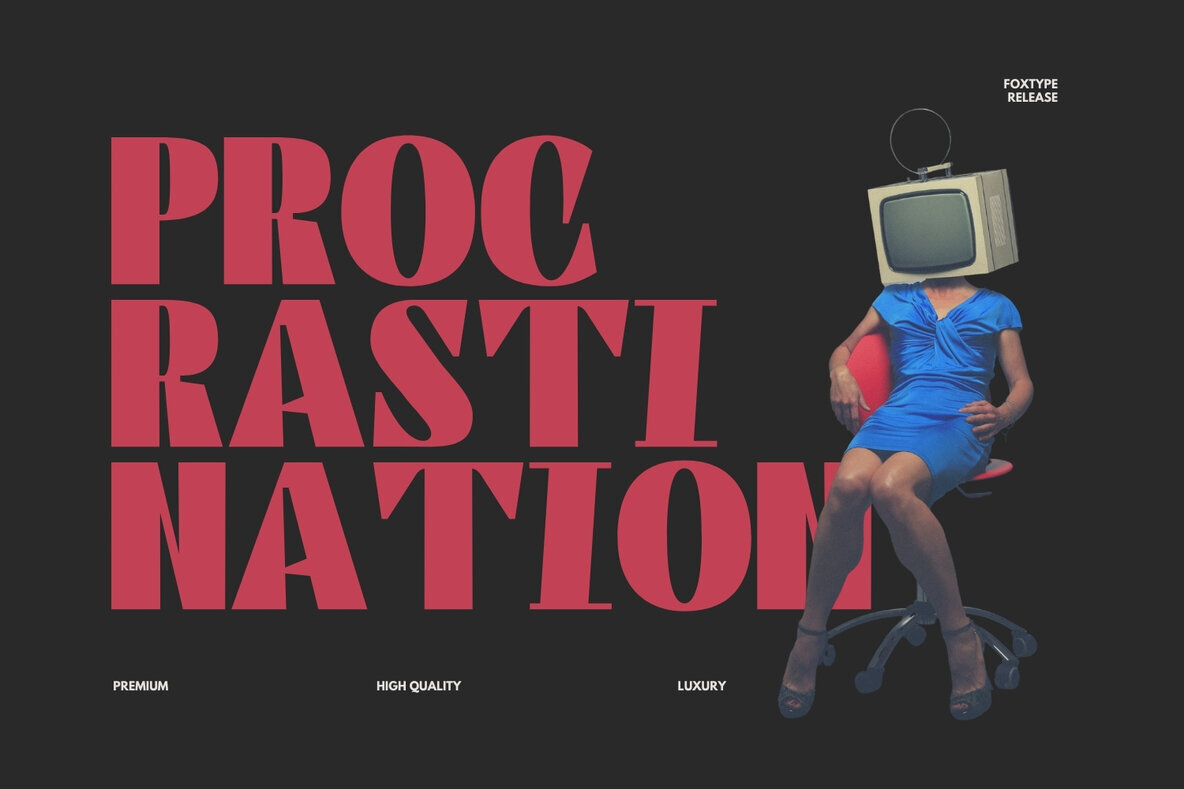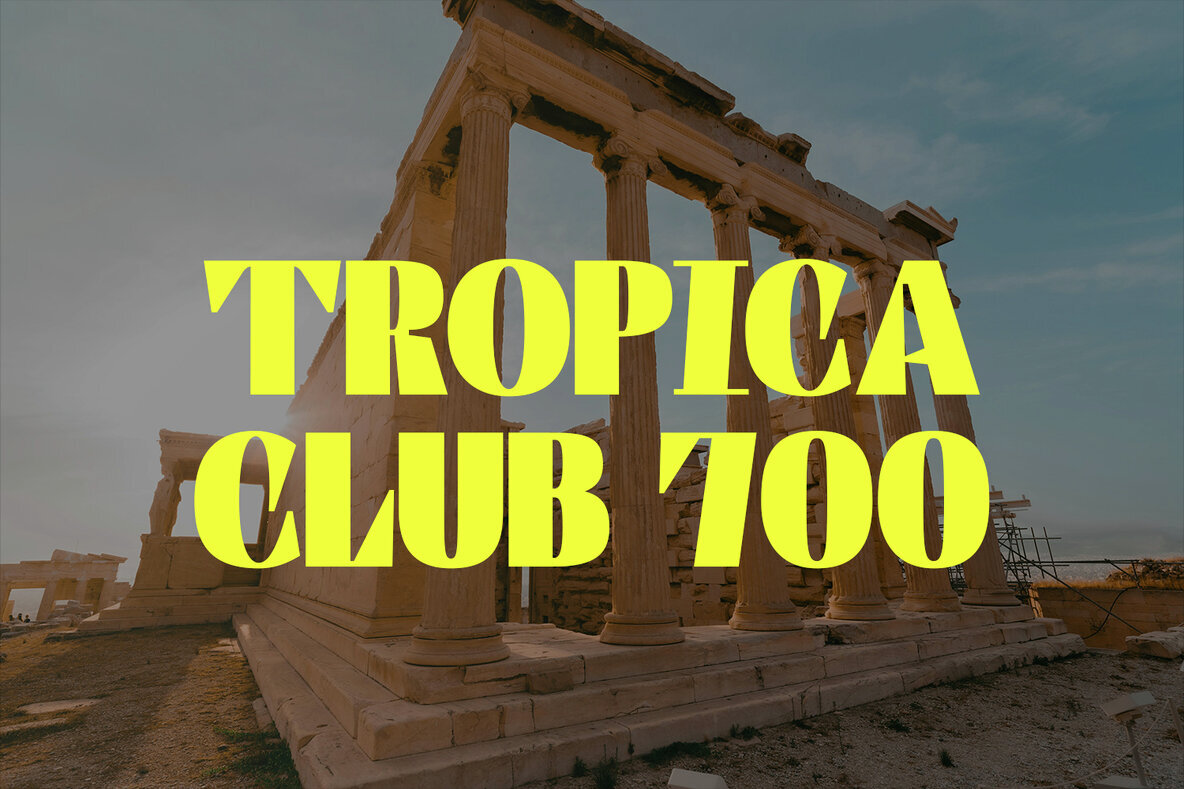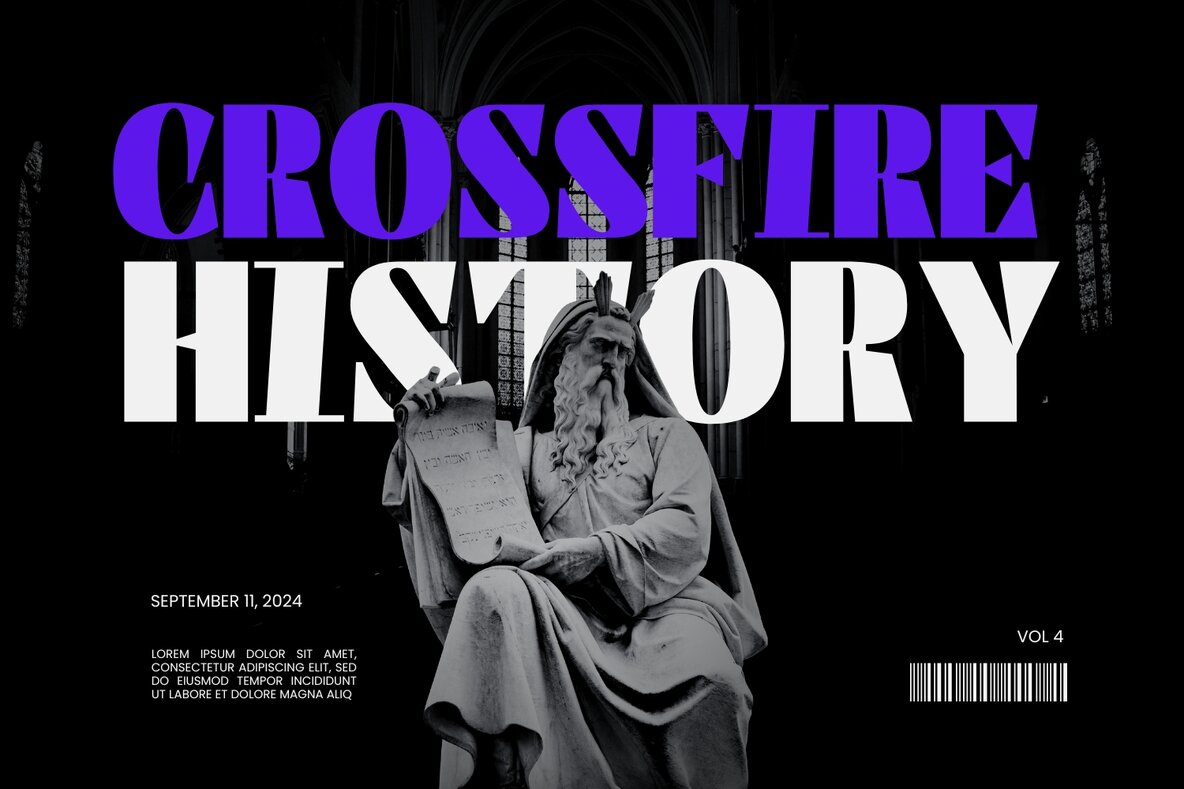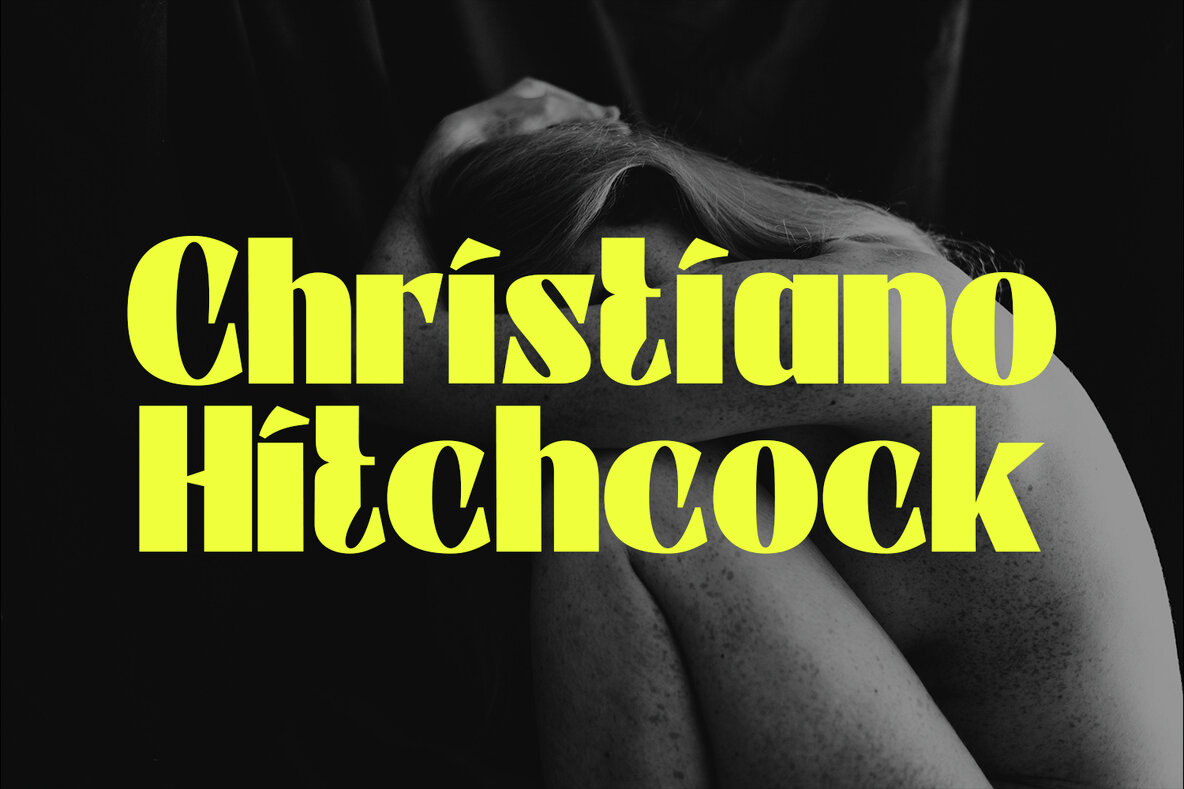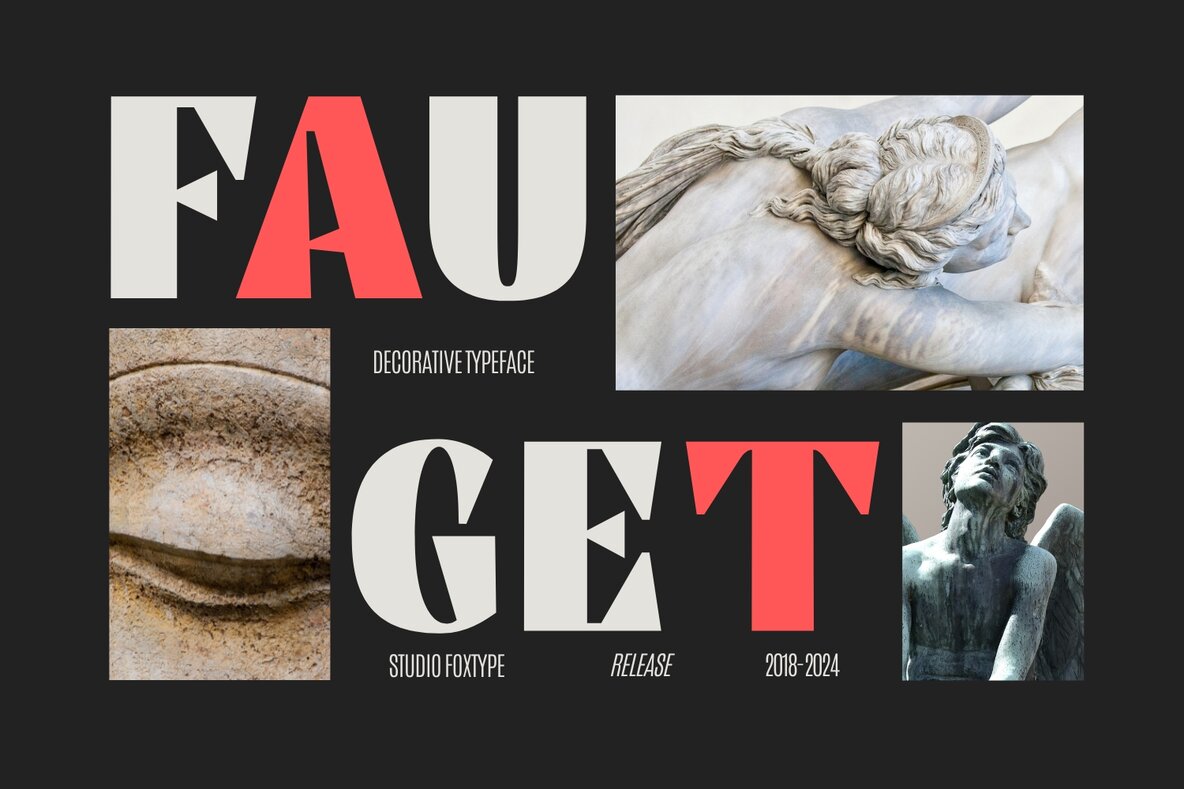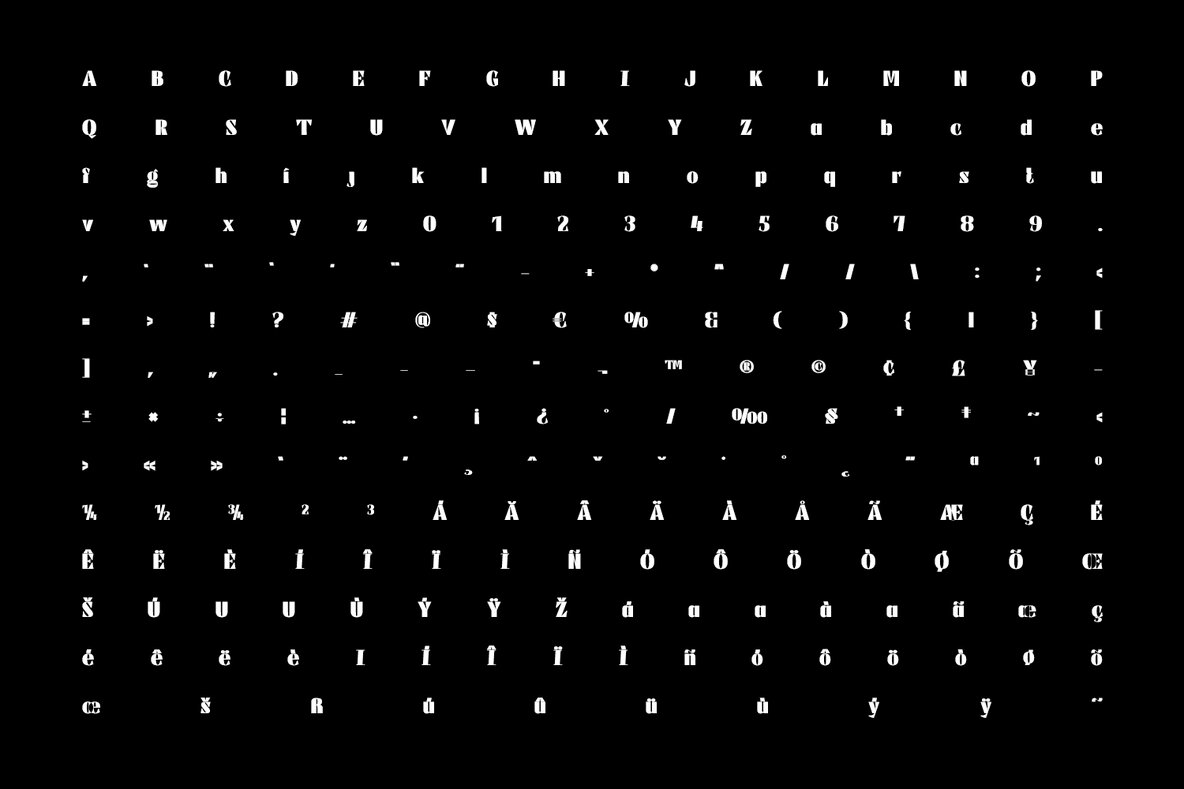
Crossfire Font
Crossfire Display is meticulously designed to make a bold, modern statement in your creative projects. Ideal for posters, magazine covers, headlines, logos, and branding, this font injects a dynamic touch into any design. Each character is crafted with precision to ensure both clarity and visual appeal, offering versatile usage across various mediums.
Enhance your branding with Crossfire Display’s distinctive style. Its neat and precise design makes it perfect for creating eye-catching posters, striking magazine covers, and attention-grabbing headlines. This font seamlessly combines elegance and impact, making it an essential tool for designers aiming to create memorable visuals.